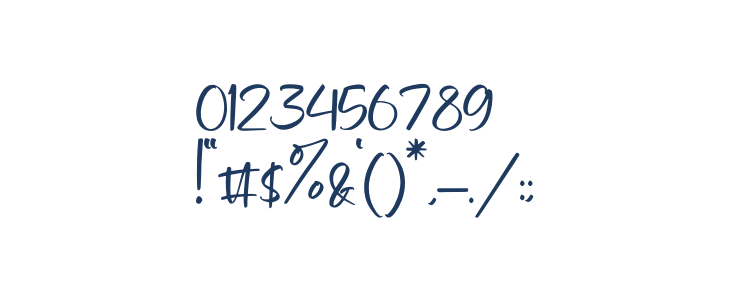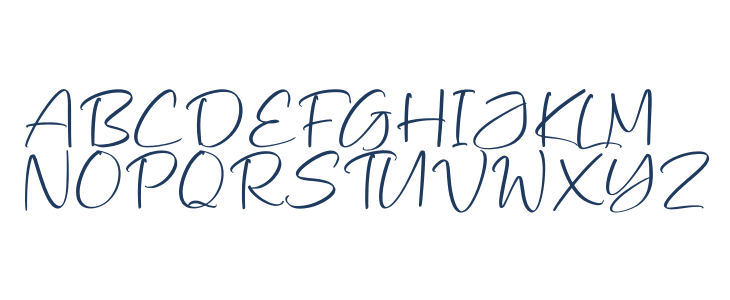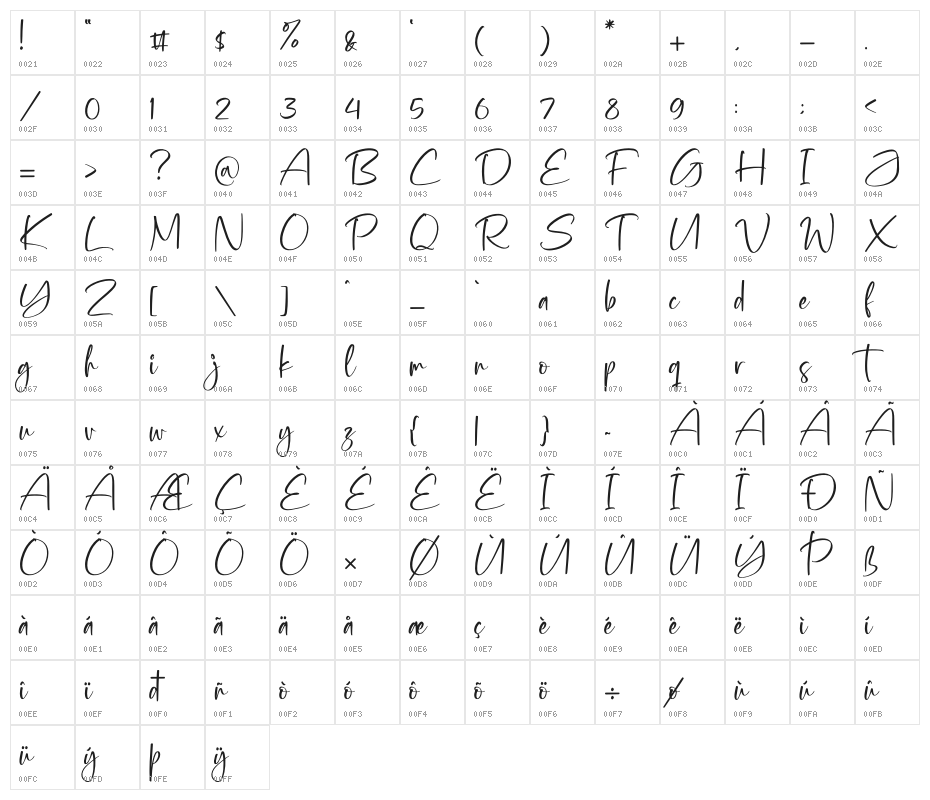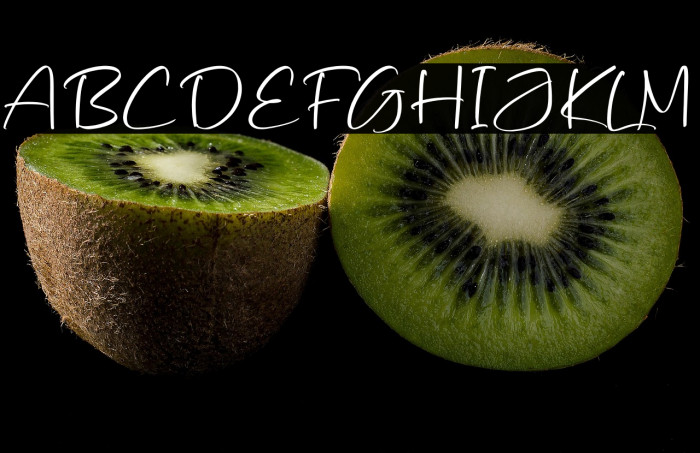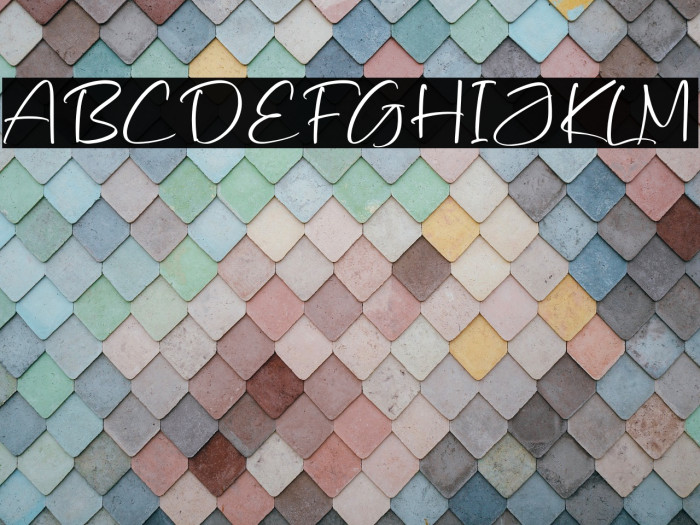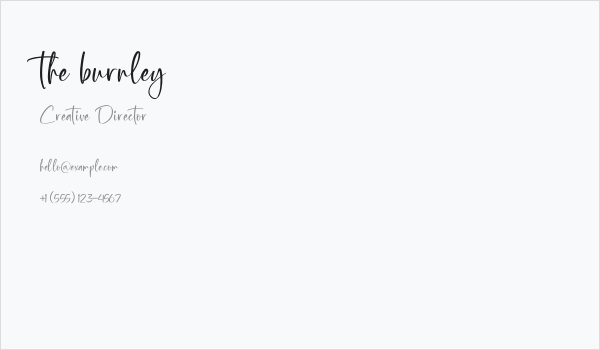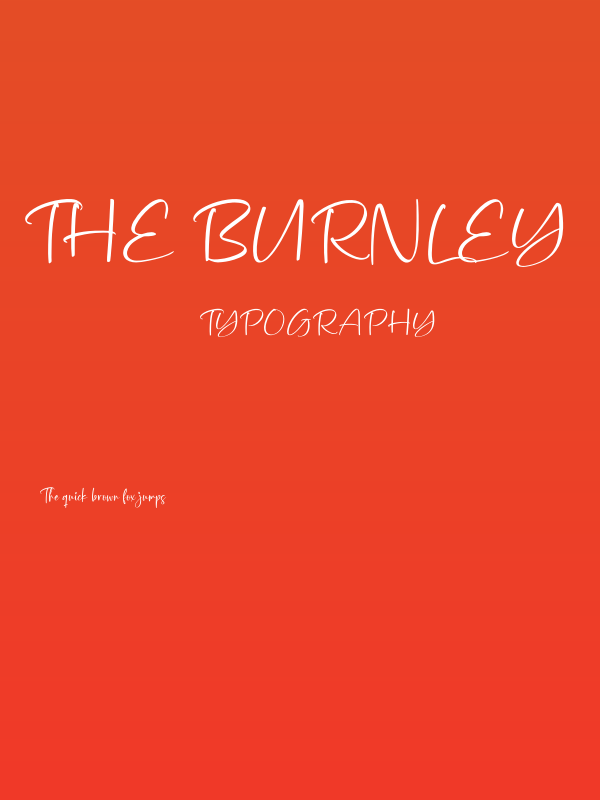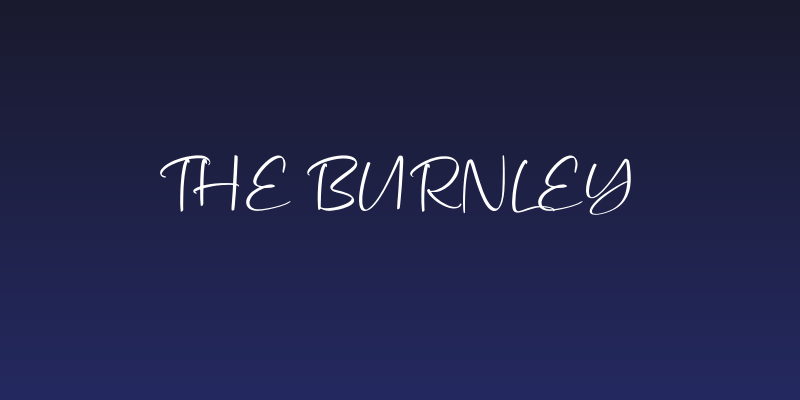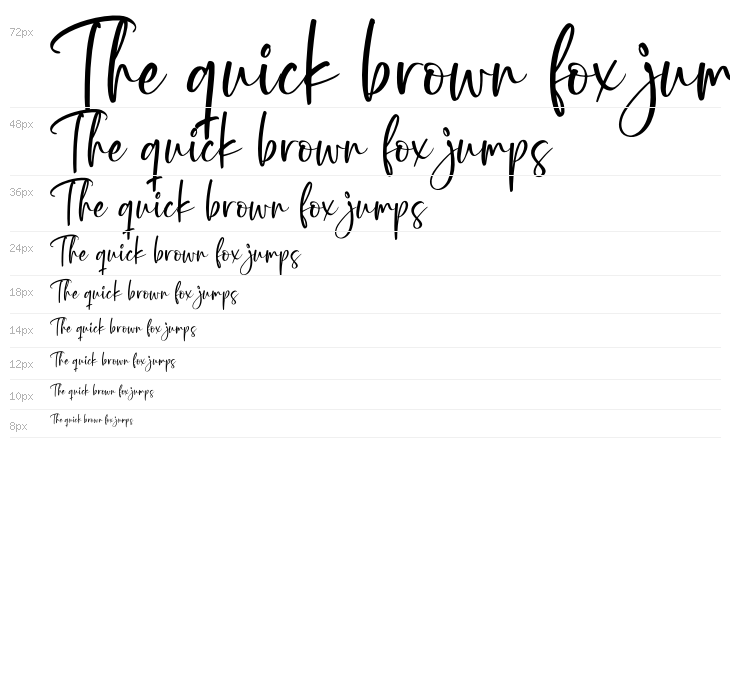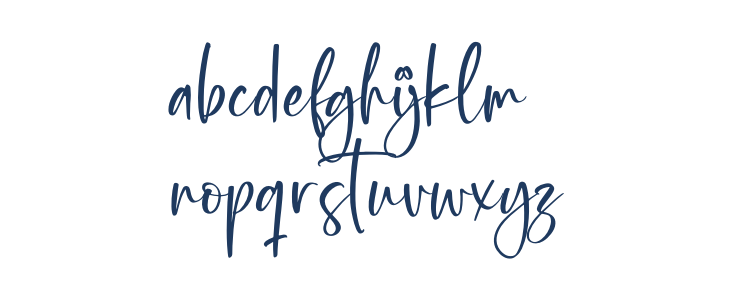
the burnley Font
the burnley Description
A lively, handwritten script font with fluid, connected strokes and a casual, modern feel. The characters feature varying heights and playful loops, giving it an expressive and personal touch.
| Overall Style | Modern, Decorative, Casual |
| Use Case | Logos, Headlines, Invitations, Social media graphics |
| Proposed Projects | Greeting cards, invitations, branding, social media graphics, quotes, personal blogs. |